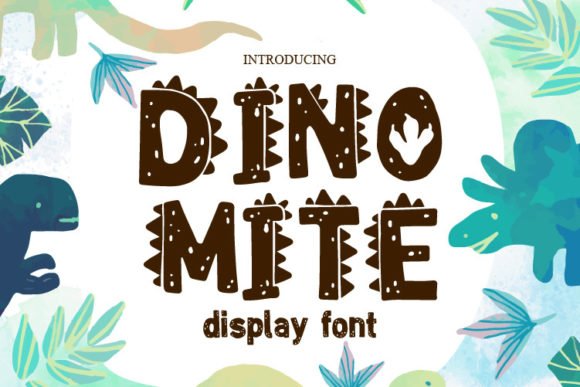
Unleash the Roar of Creativity with Dinomite Font
Do you remember the excitement of creating your first artwork as a child? The thrill of using bright colors, bold shapes, and whimsical characters to bring your imagination to life? As designers, we’ve all been there – and that’s exactly what makes the Dinomite Font so special.
Designed with adventure and fun in mind, the Dinomite Font is the perfect choice for kids’ activities, school projects, and any design project that needs a touch of excitement. With its dinosaur elements, this decorative font is sure to captivate young minds and inspire creativity. Whether you’re a seasoned designer or just starting out, the Dinomite Font is a valuable tool that’s sure to bring a smile to your clients’ faces.
Dinomite Font Key Features
- Font Style: A unique, bold, and playful sans-serif font designed for headings and titles.
- Unique Characteristics: Features a distinctive, hand-drawn feel with exaggerated letterforms and bold lines, perfect for adding a touch of whimsy to designs.
Dinomite Font Review
Overall, I think the Dinomite Font is a fun, energetic choice for headings and titles. ✨ It’s great for creating a bold, playful atmosphere in designs. The font’s prehistoric theme is quirky and engaging, making it perfect for kids’ products, entertainment brands, or anything that needs a little excitement.
One of the things I like most about the Dinomite Font is its flexibility. ✨ It comes in a range of weights and styles, from light to bold, which makes it easy to use in different contexts. You can use it for headings, body text, or even logos, depending on the project’s requirements.
While the Dinomite Font is great for some projects, there are a few limitations to consider. ⚠️ For one, it’s not the most legible font, especially at smaller sizes. This can make it difficult to read in certain contexts. Additionally, the font’s prehistoric theme may not be suitable for all audiences or brands.
Final Thoughts
In conclusion, the Dinomite Font is a fun, energetic choice for designs that need a bold, playful touch. While it has some limitations, it’s still a great option for the right project. Just be sure to use it thoughtfully and consider the audience and context.
- Fun, energetic design
- Prehistoric theme
- Range of weights and styles
- Perfect for kids’ products, entertainment brands, and more
- May not be suitable for all audiences or brands
- Not the most legible font, especially at smaller sizes
The Dinomite Font is perfect for:
- Creating bold and eye-catching headlines.
- Adding a playful touch to your designs.
- Highlighting important information or calls-to-action.